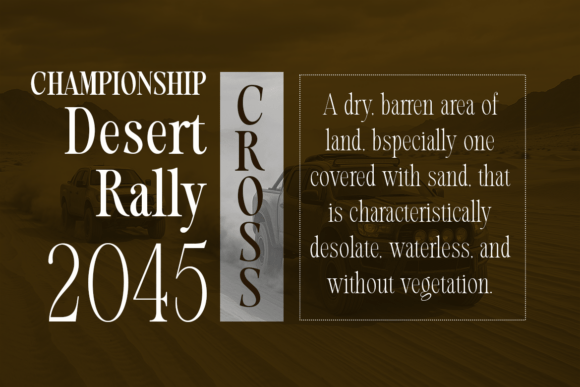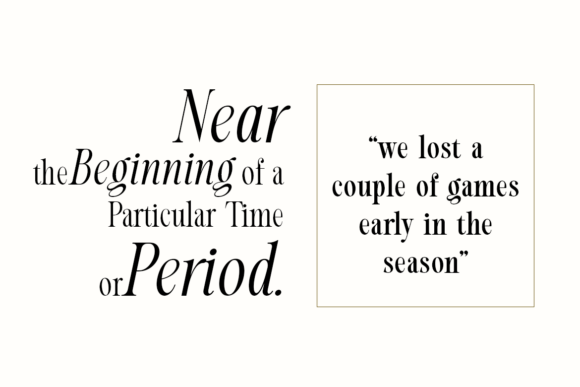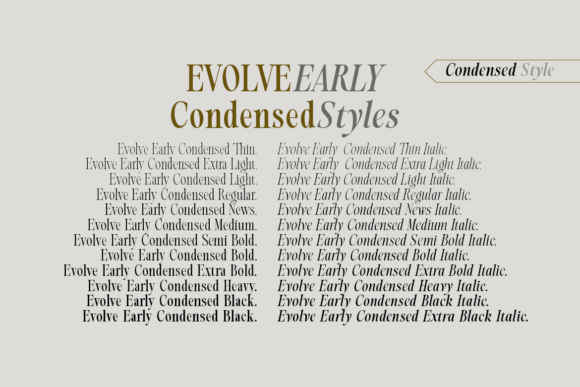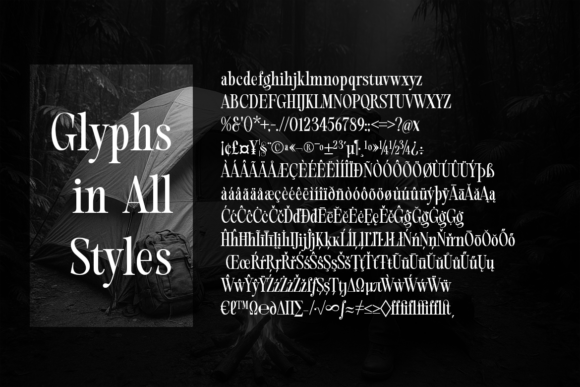
Discover the Elegance of Evolve Early Consended Font
In the world of typography, finding the perfect balance between familiarity and uniqueness is a rare gem. This is where Evolve Early Consended comes into play, offering designers an exquisite tool to elevate their creative projects. With its bold and expressive serif design, Evolve Early Consended is a versatile font family that has captured the hearts of designers and crafters alike, making it a staple in top fashion magazines, publications, and various design works.
The Charm of Evolve Early Consended
Evolve Early Consended boasts a vintage charm that seamlessly supports contemporary designs. This font family is characterized by its soft flexibility in the glyph character section, providing a unique touch to any design project. The Evolve Early Consended font family consists of 12 upright fonts and 12 italics, totaling 24 font variations. This extensive range allows designers to experiment with various applications, ensuring that their work stands out with elegance and sophistication.
Applications of Evolve Early Consended
The versatility of Evolve Early Consended makes it an ideal choice for a multitude of design needs. Whether you’re working on:
• Logos: Create memorable brand identities with the distinctive and elegant style of Evolve Early Consended.
• Magazines and Publications: Elevate your editorial designs with a font that exudes professionalism and style.
• Films: Add a touch of glamour and sophistication to your film titles and credits.
• Branding: Establish a strong brand presence with a font that communicates elegance and refinement.
• Headlines, Captions, and Posters: Draw attention and convey your message effectively with the bold and expressive nature of Evolve Early Consended.
Why Choose Evolve Early Consended?
Evolve Early Consended is not just another font; it’s a design statement. Here are a few reasons why designers and crafters are gravitating towards this exceptional font family:
• Perfect Balance: Evolve Early Consended strikes the perfect balance between traditional and modern design elements, making it suitable for a wide range of projects.
• Readability: Despite its bold and expressive nature, Evolve Early Consended maintains high readability, ensuring that your message is conveyed effectively.
• Elegance: The font’s vintage charm and soft flexibility in glyph characters add an unparalleled level of elegance to any design.
• Variety: With 24 font variations at your disposal, you have the creative freedom to experiment and find the perfect fit for your project.
Tips for Using Evolve Early Consended
To maximize the potential of Evolve Early Consended in your designs, consider the following tips:
• Mix and Match: Experiment with different font variations to create visual hierarchy and add depth to your designs.
• Play with Sizes: Utilize the various thicknesses of Evolve Early Consended to create emphasis and guide the viewer’s eye through your design.
• Pair it Wisely: Combine Evolve Early Consended with complementary fonts to enhance its unique features and create a cohesive look.
Evolve Early Consended is more than just a font; it’s a design companion that offers elegance, versatility, and creativity. Whether you’re a seasoned designer or a passionate crafter, this font family provides the tools you need to bring your vision to life. With Evolve Early Consended, you can create stunning designs that leave a lasting impression without sacrificing beauty or readability. Dive into the world of Evolve Early Consended and discover a new dimension of typographic excellence.